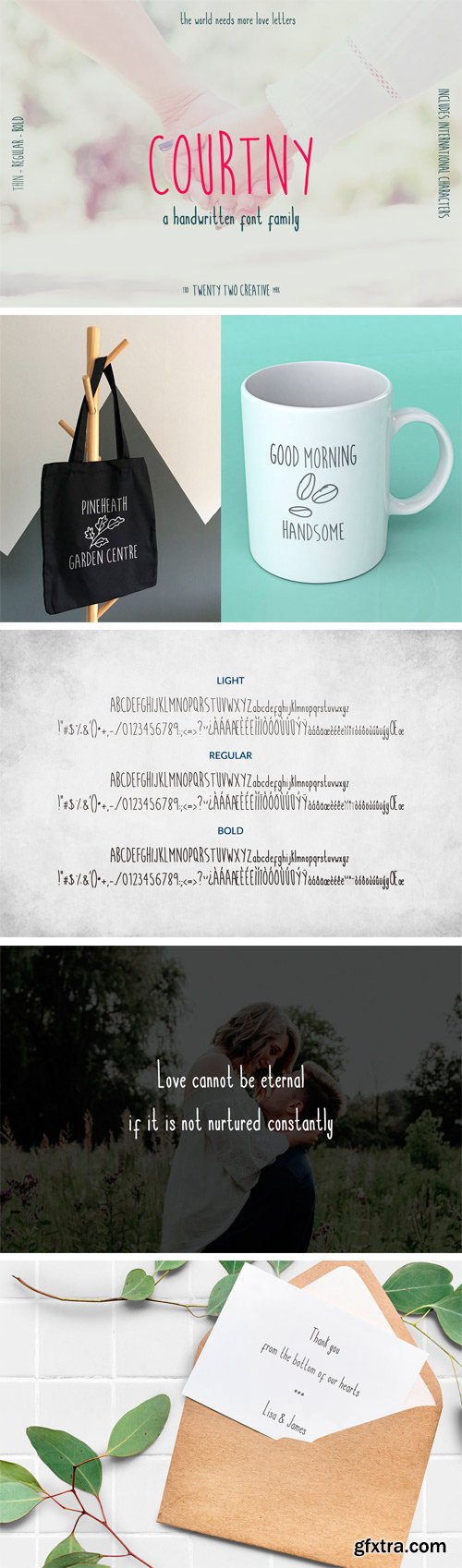
Say hello to Courtny, a hand-written font perfectly suited for quotes, stationery, packaging, logos and more. There are three weights in this set: light, regular and bold.